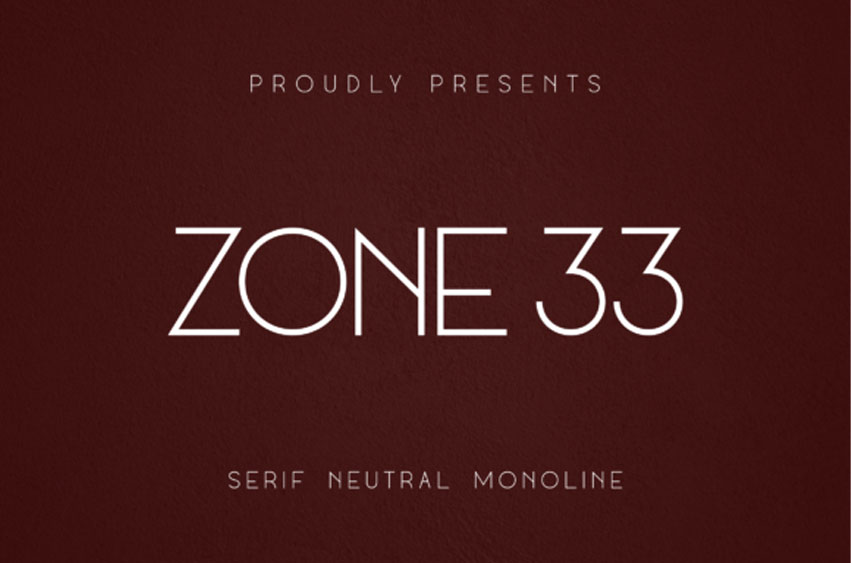
Zone 33 Font
Zone 33 Font is a modern and stylish sans serif font.
No matter the topic, this font will be an incredible asset to your font library, as it has the potential to elevate any creation.